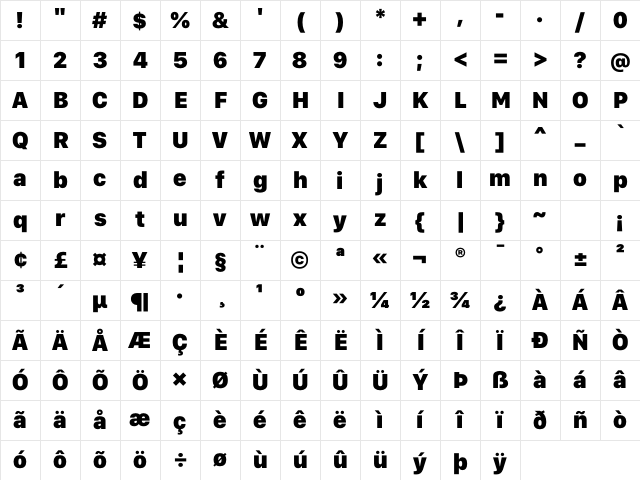
SF Compact Display is built around its visual character rather than neutral utility - its distinctive forms are designed to make an impression at display sizes.
Font Pairing: Pair with a clean neutral sans-serif for body copy to let SF Compact Display's character lead without overwhelming the composition.
Pro Tip: Use SF Compact Display exclusively at display sizes - it was designed to be seen, not read at length. Let a neutral companion handle body copy.